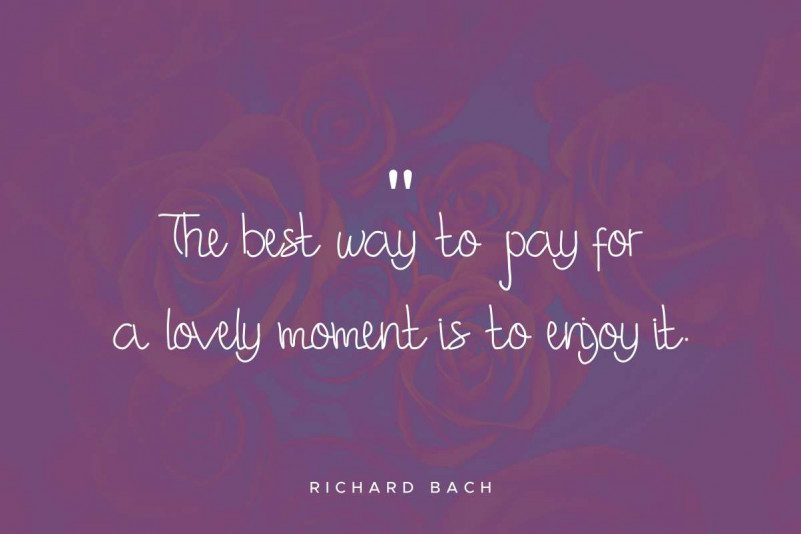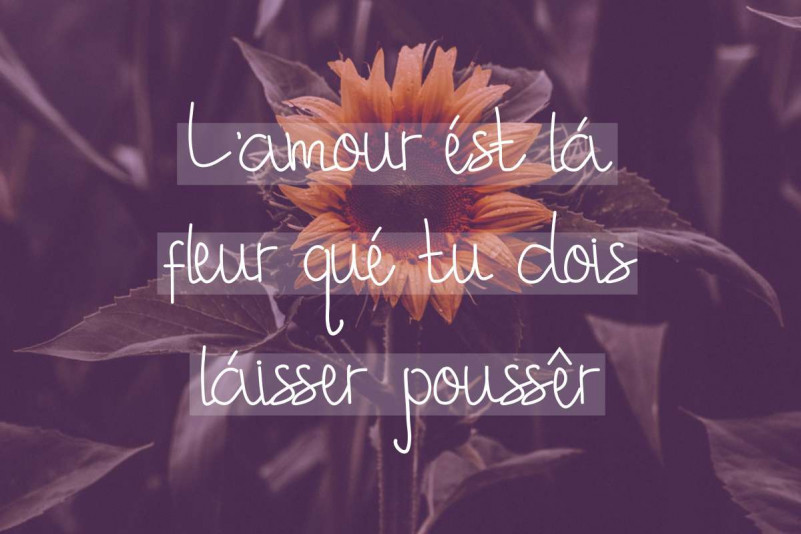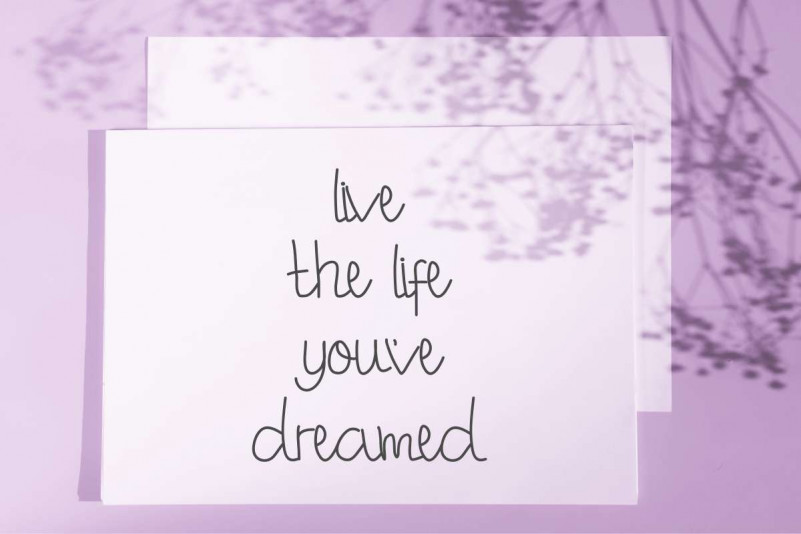
Bubbly Shilan Script Font
Bubbly Shilan Script Font is a handwritten Script font with natural look hand writing style. It also support international languages characters. It works well on PC & Mac. Accessible in the Adobe Illustrator, Adobe Photoshop, Adobe InDesign, even work on Microsoft Word. It’s also PUA Encoded Characters – Fully accessible without additional design software.